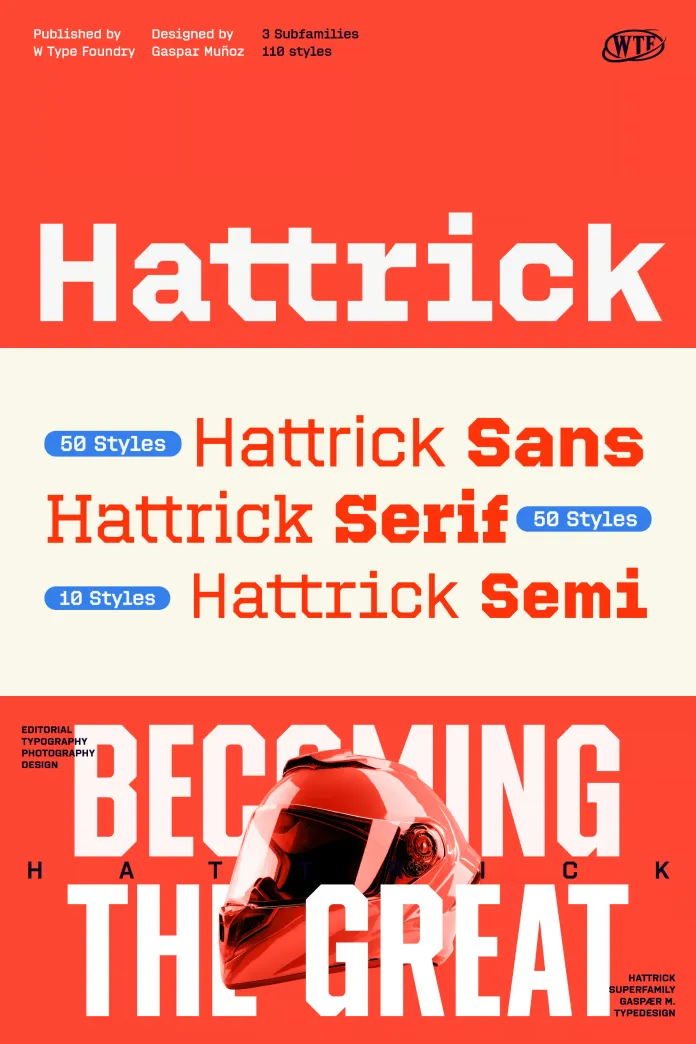
W Type Foundry’s Hattrick Font Family Is a Cool Sports Branding Typeface for Graphic Designers
Varsity lettering is everywhere right now. From luxury streetwear drops to NBA team rebrands, the visual language of American collegiate sports has never felt more commercially potent. Yet most designers reaching for that aesthetic keep landing on the same three tired options—overworked display fonts that collapse the moment you push them beyond a headline. The Hattrick font family changes that conversation entirely. Designed by Gaspar Muñoz and published by W Type Foundry, Hattrick arrives as a 110-style typographic system built for exactly the cultural moment we are in.
This is not a novelty sports font. Hattrick is a serious, scalable type superfamily that covers sans, serif, and a hybrid semi-subfamily. It handles everything from jersey numerals to brand guidelines, from packaging to editorial spreads. I tested all three subfamilies across real branding scenarios, and the depth of this family surprised me at every turn.
What Makes the Hattrick Font Family Different From Other Sports-Inspired Typefaces?
Most sports fonts are props. They look convincing at 200pt on a poster, then fall apart at 14pt in body copy. Muñoz built Hattrick to behave the opposite way. The family operates as a genuine typographic system rather than a one-trick display face. That distinction matters enormously for professional branding work.
W Type Foundry has been producing serious typefaces since its relaunch in 2016, and Hattrick reflects the foundry’s cumulative typographic intelligence. The design vocabulary pulls directly from classic varsity lettering and retro sports aesthetics—college jerseys, American football uniforms, and traditional athletic graphics. But Muñoz translates those references into something structurally rigorous. Every weight, every width, every style connects back to a coherent internal logic.
Furthermore, the family currently ranks among MyFonts’ Hot New Fonts, which tells you something about its timing. The appetite for this kind of work exists. Hattrick simply executes it better than anything else currently available.
The Three Subfamilies Explained
Understanding the family requires understanding its three-part architecture. Each subfamily serves a distinct typographic function.
Hattrick Sans leads with strength and modern clarity. The letterforms carry confident stroke contrast without tipping into high-drama display territory. You can run these weights at headline scale, and they hold. You can also use the lighter cuts in subheading hierarchies without the type feeling decorative or costume-like. That range is rare in sports-adjacent design.
Hattrick Serif introduces what I call classical editorial authority. The serif styles channel a different energy—more measured, more collegiate in the original academic sense rather than the athletic one. Set them against the Sans styles, and you immediately feel the productive tension. This is where the family starts to feel like a true typographic system rather than a themed collection.
Hattrick Semi is the most distinctive part of the family. The semi-subfamily operates with a technical, near-monospaced rhythm that generates visual tension without sacrificing legibility control. Think of it as the midfield player in this typographic lineup—it connects the expressive sans and the refined serif with something unexpected and contemporary.
How the Hattrick Subfamily Architecture Creates a Tri-Modal Branding System
I want to introduce a framework here that helps explain why Hattrick works so well for identity design: the Tri-Modal Branding Architecture. This describes a type family where three distinct subfamilies cover three different tonal registers—expressive, authoritative, and technical—within a single unified design system.
Most branding projects need all three registers. A sports brand needs impact typography for campaigns, editorial clarity for communications, and technical precision for data-driven applications like statistics, schedules, and jersey numbers. Hattrick delivers all three from one cohesive source. That eliminates the messy visual friction that comes from pairing unrelated typefaces.
Additionally, this tri-modal approach means a designer can build an entire brand identity without leaving the system. The semi-subfamily in particular solves a problem that normally sends designers hunting for a separate monospaced utility font. Here, it lives natively inside the family with matching proportions and weight relationships.
Weight Range and Style Distribution
110 styles is a significant number. To give you a sense of scale, that is more than most foundries release in an entire year. Across the three subfamilies, Muñoz covers an extensive weight range with both upright and italic cuts. The italic styles in Hattrick deserve particular attention—they feel designed rather than mechanically slanted. The italics contribute genuine momentum to the letterforms, which connect perfectly with the athletic energy the family draws on.
Moreover, the width variation across the family gives designers spatial flexibility. Condensed styles work for jersey-style treatments and tight composition. Extended cuts open up for editorial and packaging applications where breath and presence matter more.
Testing Hattrick Across Real Branding Scenarios
I ran the family through several distinct use-case tests. Here is what I found in each.
Sports Brand Identity
This is the obvious application, and Hattrick delivers completely. The Sans ExtraBold condensed styles produce exactly the compressed power you want for team name treatments and campaign headlines. Set at a large scale, the letterforms carry visual mass without feeling crude. The stroke geometry feels considered rather than inflated.
Pairing the Sans headline weights with the Serif cuts for supporting text gives you a natural editorial hierarchy that feels native to sports publishing. Think Sports Illustrated at its peak visual design period—that confident combination of display weight and authoritative text.
Merchandise and Packaging
This is where many display-oriented families collapse. Packaging demands legibility across a wide size range, color reversal, embossing, and screen printing. I tested Hattrick Sans across all of these conditions. The letterforms hold their structure at small sizes. The open counters in the rounded characters survive dark backgrounds without filling in. The Serif styles work well on premium packaging where a slightly more elevated register is needed.
Furthermore, the semi-subfamily opened up interesting possibilities for label design—particularly for numbering, sizing information, and technical callouts where a slightly mechanical rhythm actually reads as a design asset rather than a compromise.
Editorial and Editorial-Adjacent Applications
Running Hattrick in a magazine-style layout revealed something unexpected. The Serif subfamily has genuine editorial weight. Consequently, it works as a headline face for sports journalism, brand magazines, and any editorial context where you need authority alongside energy. The Serif styles do not read as decorative. They read as confident.
Additionally, the combination of sans and serif within the family produces elegant typographic contrast without the visual noise of mixing foundries. The proportional relationships between subfamilies are clearly calibrated to work together.
The Athletic Grotesk Principle: Why Hattrick’s Design Logic Is Worth Studying
I want to define a second original framework here: the Athletic Grotesk Principle. This describes the design approach where a typeface draws on the visual conventions of athletic lettering—condensed proportions, confident stroke weights, and legibility at a distance—while maintaining the structural discipline of a professional grotesk or text typeface.
Hattrick exemplifies this principle better than any current release I have tested. Muñoz avoids the trap of pure pastiche. The historical references to varsity lettering are present but distilled. What remains is a typeface that feels genuinely contemporary rather than nostalgic. You could use Hattrick Sans for a tech startup’s brand identity, and it would feel completely at home. The sports DNA is there as a structural quality, not a costume.
This matters because it dramatically expands the typeface’s commercial range. Sports branding is the obvious market, but editorial design, premium packaging, brand identity systems, and even digital product design can all draw on what Hattrick offers.
Gaspar Muñoz’s Design Approach
Understanding Muñoz’s background helps explain Hattrick’s character. He came to type design through an early immersion in street lettering and graffiti culture in Santiago, Chile. He joined W Type Foundry in 2018. His previous typefaces for the foundry demonstrate a consistent interest in letterform energy and structural discipline working simultaneously. Hattrick is his most ambitious project yet and his most commercially expansive.
The influence of graffiti on Hattrick is subtle but real. You can feel it in the confidence of the stroke terminals and the slightly compressed energy of the proportions. Nevertheless, Muñoz has processed those influences through a rigorous type design education, which keeps the family from tipping into roughness or informality.
Where the Hattrick Font Family Performs Best: Use Cases by Subfamily
Hattrick Sans: Best For
The Sans subfamily performs best in sports brand identity systems, campaign advertising, merchandise graphics, app UI for sports platforms, podcast and media brand identities, and any application where visual authority and forward energy need to coexist. The heavier weights own a large format. The lighter weights handle digital interfaces without becoming generic.
Hattrick Serif: Best For
The Serif subfamily is ideal for editorial design, brand guideline documents, premium packaging, sports journalism headlines, annual reports for sports organizations, and licensing applications where a brand needs to shift registers from bold campaign to refined communication.
Hattrick Semi: Best For
The Semi subfamily handles sports statistics graphics, scoreboard and broadcast typography, jersey numbering systems, technical product labeling, and any application where a slightly mechanical, equalized rhythm adds a contemporary technical edge. It is genuinely distinctive—very few families offer this kind of built-in technical subfamily with matching design DNA.
Comparing Hattrick to Other Sports and Varsity-Inspired Type Families
The market for sports aesthetic typefaces has grown significantly. Collegiate and varsity-style fonts multiply across Creative Market and similar platforms every week. So, where does the Hattrick font family actually sit in this landscape?
Most of the competition operates at the level of display-only solutions. They serve jersey mockups and social media graphics well, but they cannot carry a full identity system. Hattrick is architecturally different. The 110-style count gives it a depth that single-subfamily competitors simply cannot match. When a brand needs to scale from a campaign billboard to a nutrition label on a product package, those 110 styles suddenly all make sense.
Moreover, the semi-subfamily has no real equivalent in the sports-adjacent type market that I have encountered. It is a genuinely original contribution to the category.
Hattrick vs. Generic Varsity Fonts
Generic varsity fonts offer a recognizable style at a low cost. They are fine for temporary projects or client work where the brief is purely visual. However, they fail on scalability, system depth, and any application that requires typographic nuance. Hattrick operates in an entirely different category. It is comparable to Söhne or Neue Haas Grotesk in how it approaches type design rigor—just applied to a culturally specific but commercially expansive aesthetic territory.
Licensing and Commercial Considerations
W Type Foundry offers Hattrick through standard desktop, webfont, electronic document, app, and digital advertising license types via MyFonts. Entry-level pricing starts at $39. Given the system depth—110 styles across three subfamilies—the value proposition is strong for professional studio or agency use.
For branding agencies working on sports clients, I would specifically recommend licensing the full family rather than individual subfamilies. The system cohesion is where the real value lives. Furthermore, agencies building identity systems that need to scale across merchandise, digital, and editorial applications will find the complete family essential.
My Overall Assessment of the Hattrick Font Family
I do not frequently encounter a new typeface that genuinely solves a real professional problem. Hattrick solves the problem of sports aesthetic typography being either too shallow for system work or too generic to establish genuine brand distinction. It does this with a depth of craft that reflects Muñoz’s maturity as a type designer and W Type Foundry’s consistent standard of production.
The Tri-Modal Branding Architecture I described earlier is not theoretical with Hattrick—it is immediately practical. You can open the family, assign Sans to campaign work, Serif to editorial, and Semi to technical applications, and immediately have a coherent brand typographic system with genuine visual range.
Consequently, I expect this family to appear in serious branding work—particularly sports, streetwear, premium athletic brands, and sports media—throughout the next several years. Type families with this level of system depth and this quality of design execution do not stay underground for long.
The prediction I will put on record: within two years, Hattrick will be treated as a benchmark reference in the sports branding typography conversation alongside institutional family releases from larger foundries. The design quality is there. The system depth is there. Muñoz and W Type Foundry have released something genuinely significant.
Forward-Looking Prediction: How Hattrick Will Shape Sports Typography Trends
The broader trend in sports branding is moving away from custom-only solutions toward high-quality commercial-type systems. Budget constraints, faster turnaround times, and the need for consistent brand expression across digital and physical touchpoints are all pushing this shift. Hattrick is exactly the kind of family that benefits from this structural change in how sports branding gets done.
Additionally, the streetwear and athleisure markets continue to absorb sports-adjacent visual language into premium brand contexts. The Hattrick font family works in both directions—sports and lifestyle—which gives it unusual commercial durability. Furthermore, as AI-driven design tools create more demand for well-structured type systems with clear hierarchy relationships, families like Hattrick that offer a complete built-in system will gain a commercial advantage over scattered collections of display faces.
Frequently Asked Questions About the Hattrick Font Family by W Type Foundry
What is the Hattrick font family?
The Hattrick font family is a 110-style type superfamily designed by Gaspar Muñoz and published by W Type Foundry. It draws on classic varsity lettering and retro sports aesthetics to create a comprehensive typographic system for sports branding, editorial design, packaging, and identity systems. The family includes three subfamilies: Hattrick Sans, Hattrick Serif, and Hattrick Semi.
Who designed the Hattrick font?
Gaspar Muñoz designed Hattrick. Muñoz is a Santiago-based type designer who joined W Type Foundry in 2018. His background includes both formal type design education and an early influence from street lettering and graffiti culture. Hattrick is his most expansive and ambitious typeface release to date.
How many styles does Hattrick include?
Hattrick includes 110 styles distributed across three subfamilies: Hattrick Sans, Hattrick Serif, and Hattrick Semi. Each subfamily covers multiple weights and includes upright and italic cuts, giving designers an extensive range for complex identity systems.
What is the Hattrick semi-subfamily?
Hattrick Semi is a hybrid subfamily with a technical, near-monospaced rhythm that sits between the expressive sans and the classical serif. It creates visual tension without sacrificing control and is particularly well-suited for statistical graphics, technical labeling, scoreboard typography, and jersey numbering systems.
What kind of projects is the font family best suited for?
The Hattrick font family is ideal for sports brand identity systems, campaign advertising, merchandise and packaging design, editorial and brand magazine layouts, digital sports platforms, streetwear and athleisure brands, and premium brand identity systems that need to function across multiple scales and applications.
Where can I buy the Hattrick font family?
Hattrick is available from W Type Foundry directly and through MyFonts. Licensing options include desktop, webfont, electronic document, app, and digital advertising licenses. Individual styles are available as well as family packages. Pricing starts at $39.
How does the Hattrick font compare to other varsity-style typefaces?
Most varsity and college-style typefaces operate as single-subfamily display solutions. Hattrick is fundamentally different because it functions as a full three-subfamily typographic system with 110 styles. This gives it far greater depth, scalability, and commercial range than typical sports aesthetic fonts. The Hattrick semi-family in particular has no direct equivalent in the current market.
Is the Hattrick font appropriate for digital and web use?
Yes. W Type Foundry offers a dedicated webfont license for Hattrick. The family’s proportional range and weight distribution make it suitable for digital interfaces, sports platforms, media brand websites, and app typography. The Sans subfamily’s lighter weights perform well in screen contexts, while the heavier weights carry a strong visual presence in digital campaign and hero section applications.
What is W Type Foundry?
W Type Foundry is a Chilean type foundry originally launched in 2012 as Without Foundry and relaunched in 2016 under its current name. The foundry produces professional type families for global commercial use, distributed through platforms including MyFonts. The team includes Diego Aravena Silo, Magdalena Arasanz, Patricio Truenos, David Súid, and Gaspar Muñoz, among others.